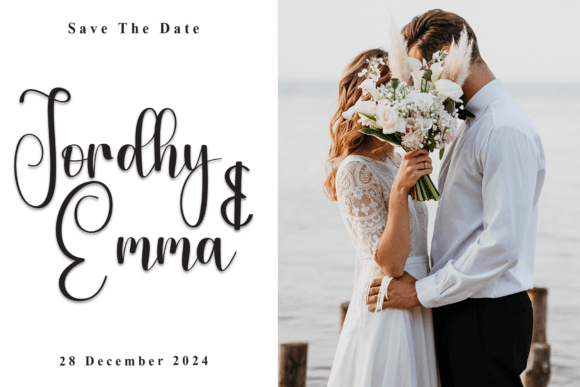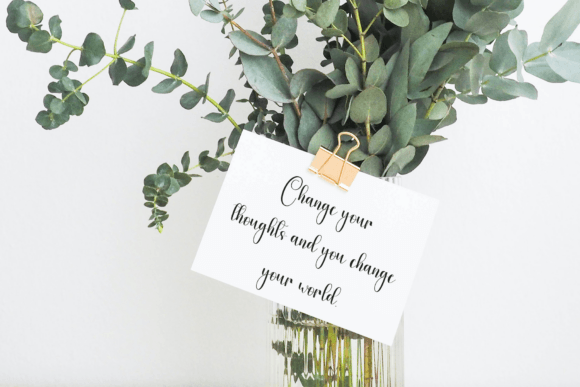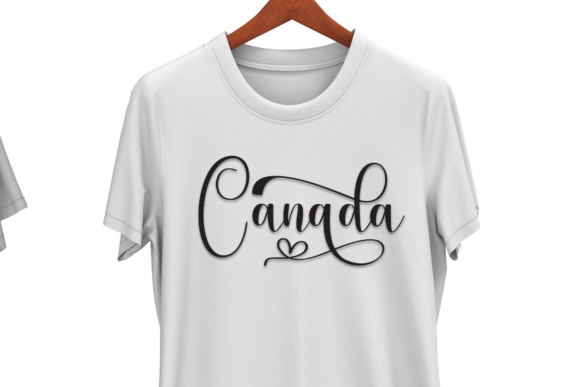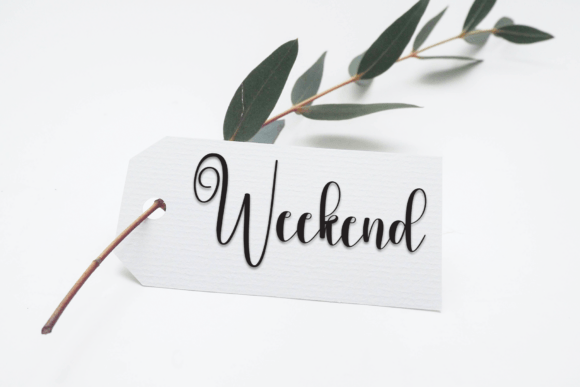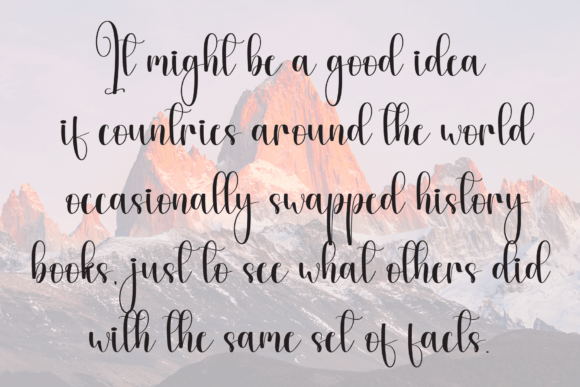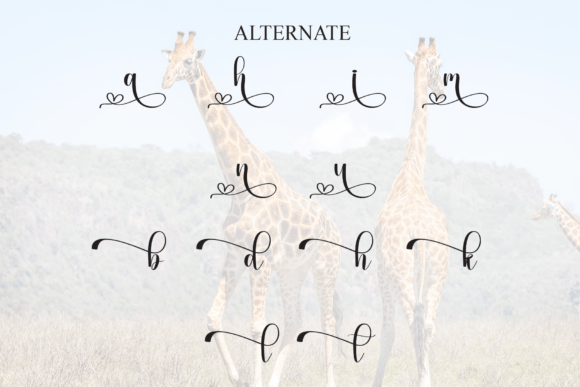
The Charm of Animals Font: A Designer’s Delight
I’ll never forget the time I was working on a wedding invitation project, and my client asked for a font that was “whimsical, yet elegant.” I scoured the internet, tried out dozens of fonts, but nothing seemed quite right. That was until I stumbled upon Animals Font. 💕
This charming, hand-drawn display font has a playful appeal that’s perfect for crafting special occasion cards, wedding invites, or adding a touch of warmth to any design. It’s not just a typography tool; it’s a unique way to infuse passion and delight into your work.
- ✨ The sweet, cheerful demeanor that adds a dash of friendliness to any design
- ✅ The font’s versatility – it works beautifully for both digital and print projects
- 💕 The unique, hand-drawn feel that sets it apart from more generic fonts
- 🎉 The extensive range of OpenType features, glyphs, and stylistic alternates
While Animals Font is an amazing addition to any design project, there are a few things to keep in mind: 🤔
- ⚠️ Some of the more intricate details may get lost at smaller font sizes
- ⚠️ The font’s playful nature may not be suitable for more formal or corporate designs
The Designer Inspiration Behind Animals Font
Animals Font was created by a talented designer who wanted to craft a font that would bring a smile to people’s faces. Inspired by the whimsical world of children’s books and the elegance of vintage typography, this font is a true labor of love.
Q: What makes Animals Font so special?
A: Animals Font is special because of its unique, hand-drawn feel and extensive range of OpenType features, glyphs, and stylistic alternates.
Q: Is Animals Font suitable for digital projects?
A: Absolutely! Animals Font works beautifully for both digital and print projects.